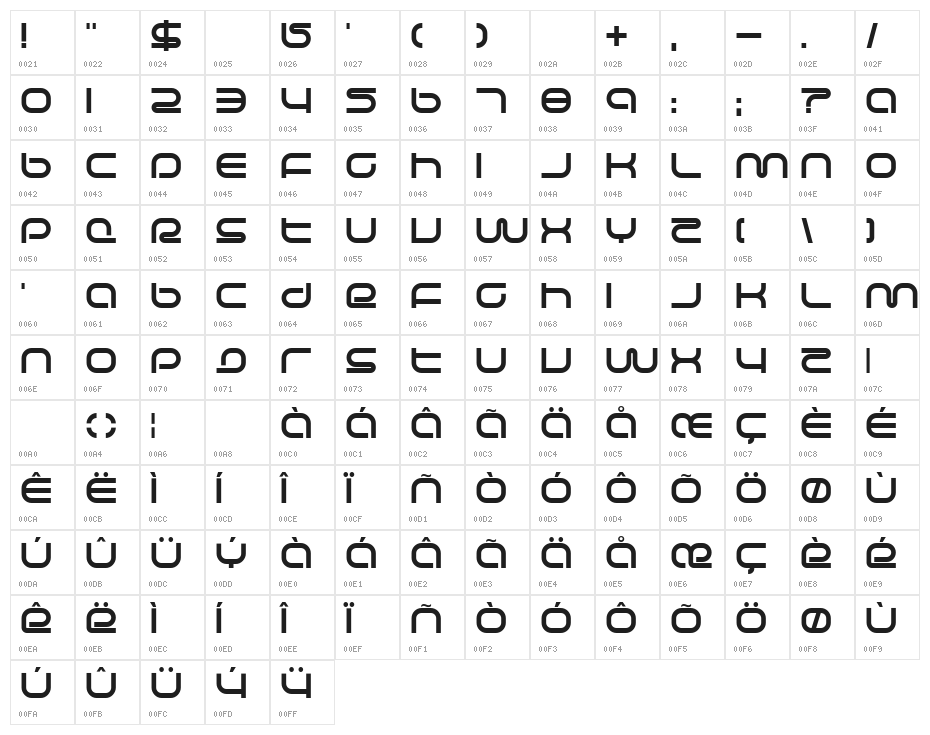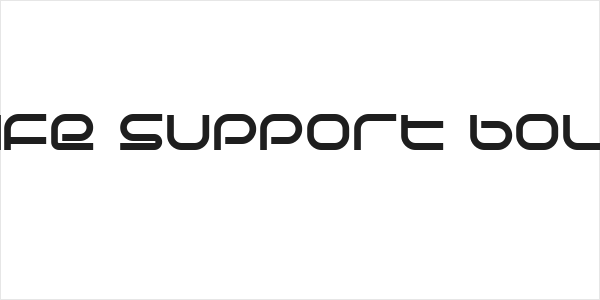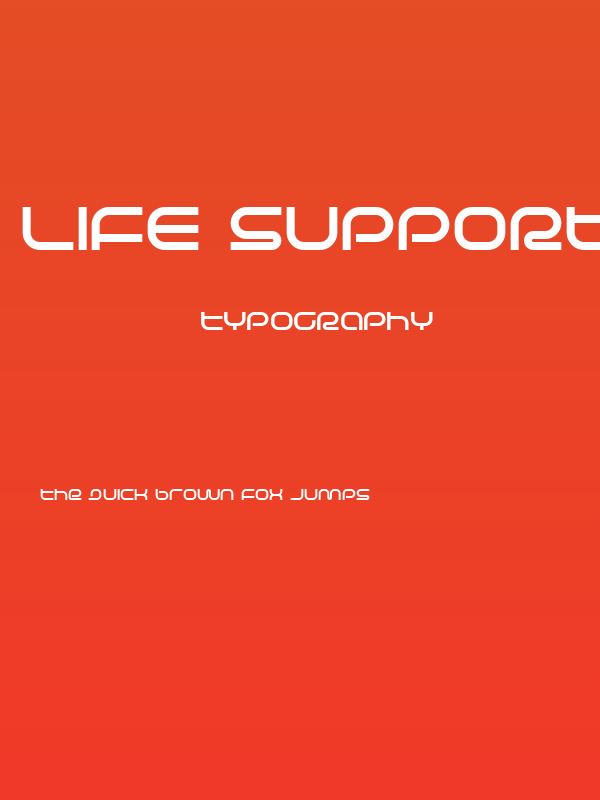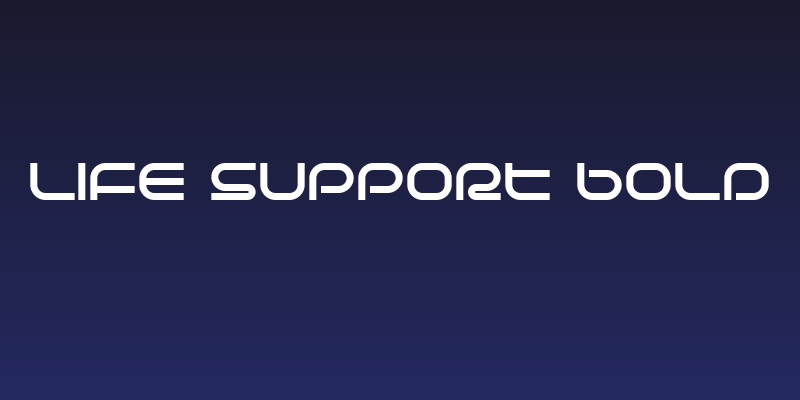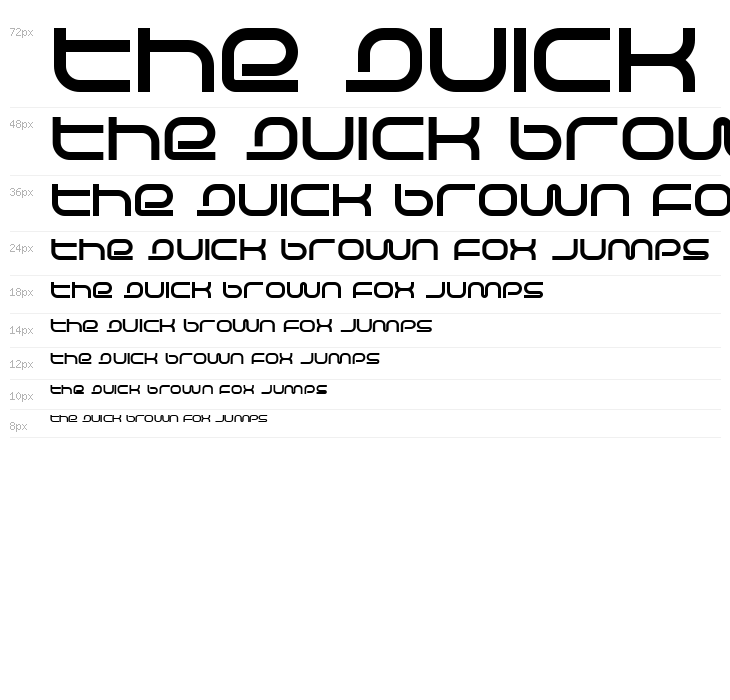
Life Support Bold Font
Life Support Bold Description
This font features a futuristic and geometric design, characterized by its bold and rounded letterforms. The characters have a consistent stroke width, giving it a uniform appearance. The rounded edges and closed apertures create a sleek and modern look, while the spacing between characters is tight, enhancing its compact style. The numerals and special characters maintain the same design principles, ensuring cohesion across all glyphs. This font is ideal for projects that require a contemporary and tech-inspired aesthetic.
| Proposed Projects | Ideal for technology branding, sci-fi themed designs, modern posters, and digital interfaces. |